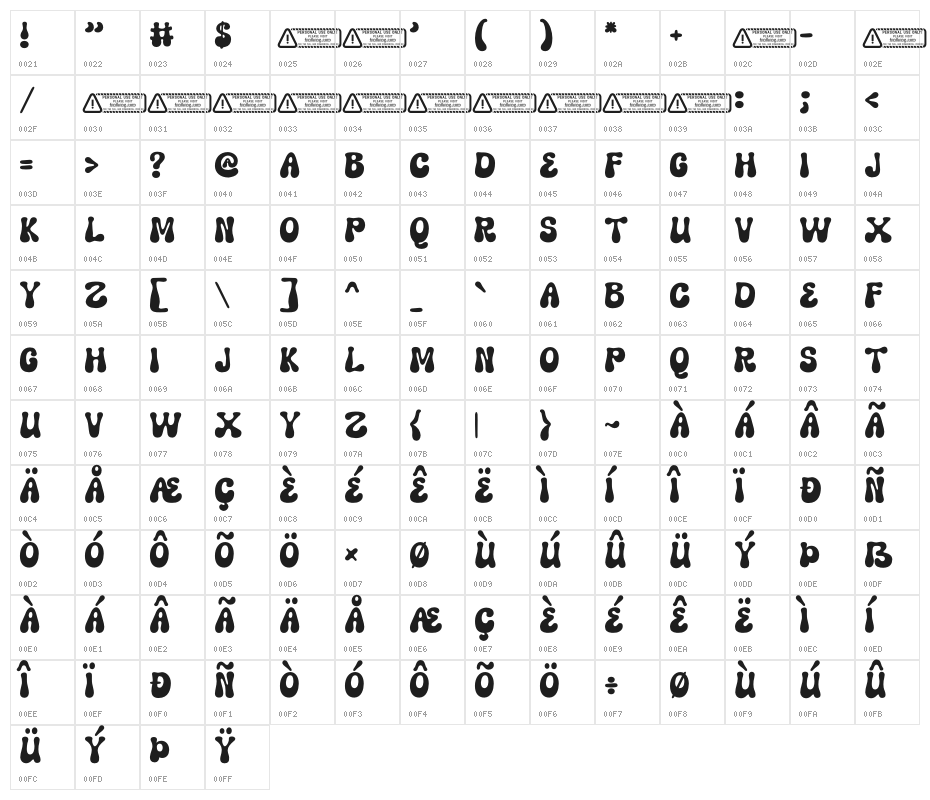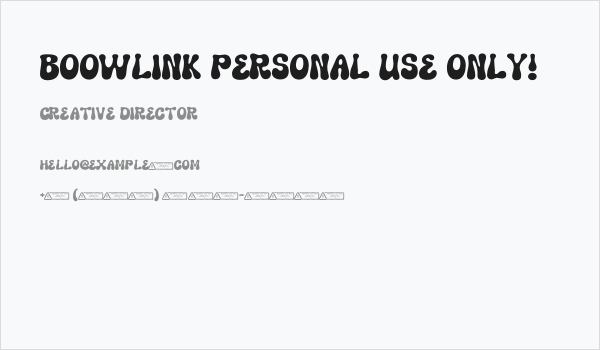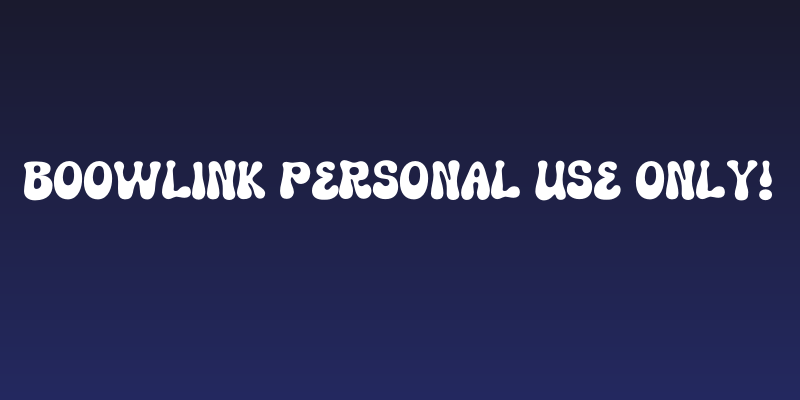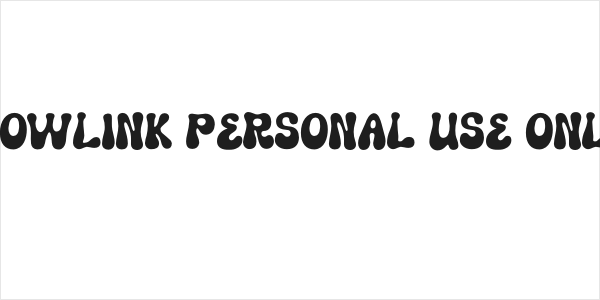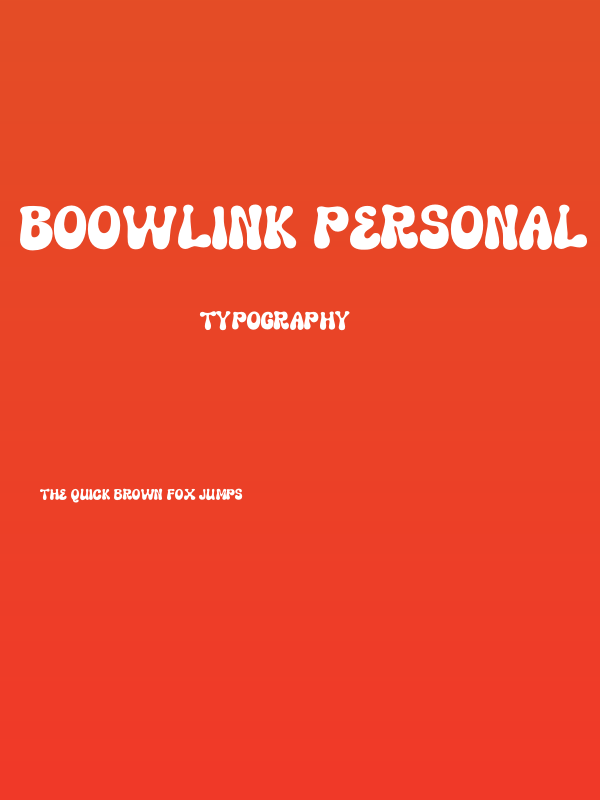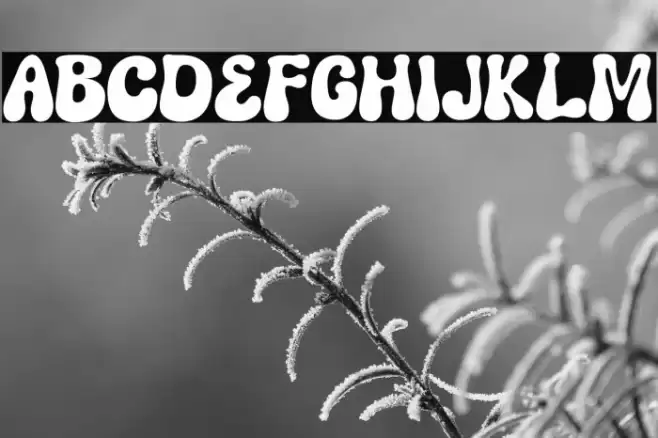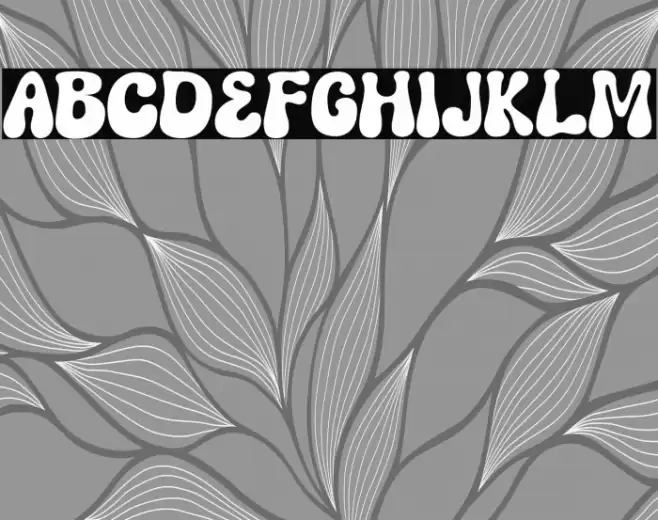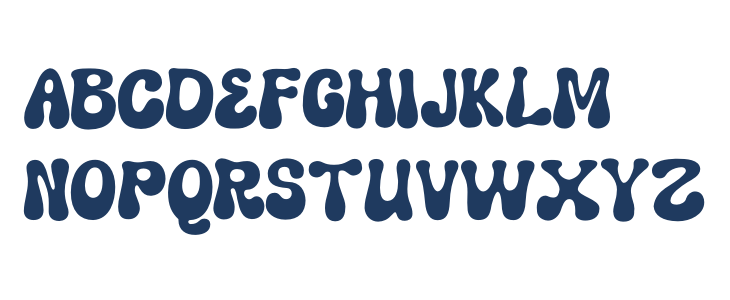
Boowlink PERSONAL USE ONLY! Font
Boowlink PERSONAL USE ONLY! Description
This font features a bold and playful design with exaggerated curves and rounded edges, giving it a bubbly and whimsical appearance. The characters are thick and have a consistent weight throughout, creating a strong visual impact. The style is reminiscent of retro or vintage aesthetics, often seen in playful or informal settings. The letters are closely spaced, enhancing the boldness of the design. This font is ideal for projects that require a fun and eye-catching typeface, such as children's books, party invitations, or playful branding.
| Overall Style | Playful, Retro |
| Proposed Projects | Ideal for children's books, party invitations, playful branding, or retro-themed designs. |